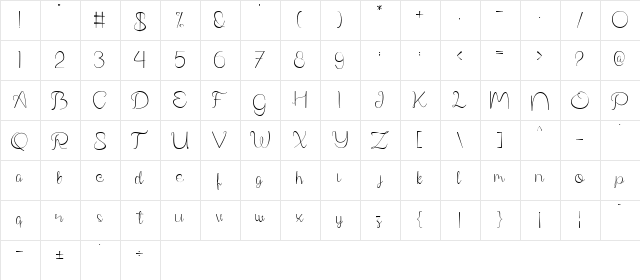
Phanthomim Regular
Design Context for Phanthomim Typeface
Phanthomim is a composed and adaptable typeface that performs quietly and consistently across a wide range of design contexts.